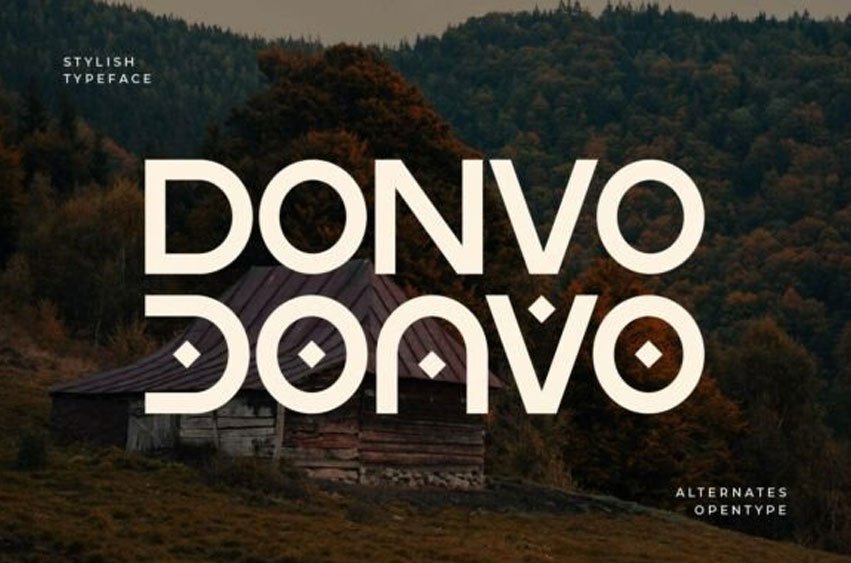
Donvo Font
Donvo Font is a unique medieval-inspired sans serif typeface that blends historical character with modern simplicity.
Featuring distinctive letterforms influenced by gothic and medieval styles, Donvo delivers a bold and artistic personality while maintaining clean and readable structure.